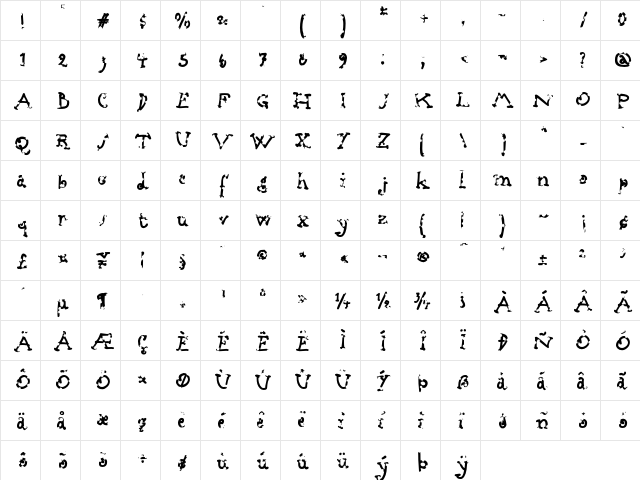
Babine Bite
Style: Bite
Foundry: preussTYPE | ingo preusss
Designer: ingo preusss
Design Context for Babine
Babine is a composed and adaptable typeface that performs quietly and consistently across a wide range of design contexts.